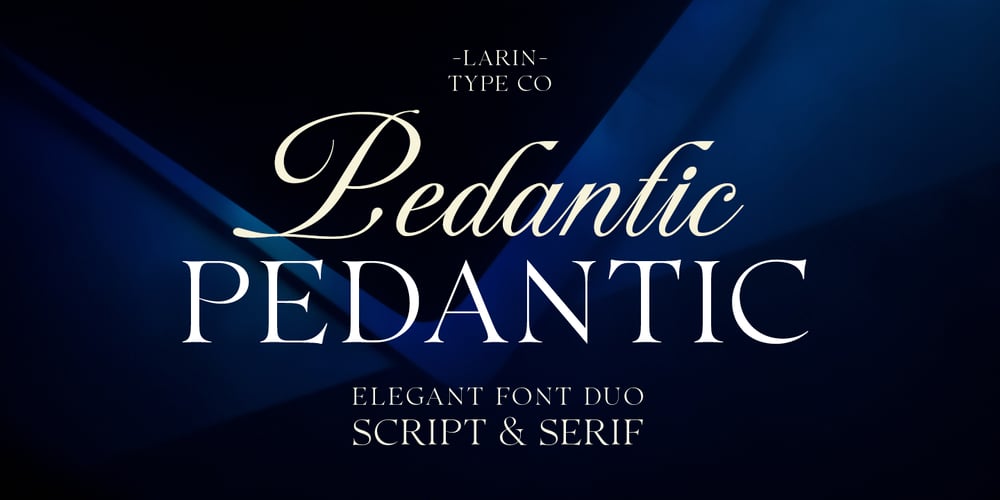
Pedantic
Pedantic font
Pedantic Font Family was designed by Pavel Larin and published by Larin Type Co. Pedantic contains 2 styles and family package options. Pedantic it’s a classic, delightful and charming, sounds like a perfect melody, flows like water,working with her is a pleasure. This font duo includes a monumental serif and a calligraphy script.The Serif font is contracting and elegant, will emphasize your taste and impress with its sophistication and simplicity.The calligraphic Script is elegant, beautiful and carefully assembled, he includes many alternates for uppercase and lowercase as well as swashes.Script and Serif looks great both separately and together and they will be a wonderful addition to your font library.This font is easy to use has OpenType features and all characters in this font have PUA encoding.Includes: Full alphabet with Uppercase and Lowercase A-z for Script Full Capital alphabet A-Z for Serif Numbers, fractions for Script and Serif Punctuation and symbols for Script and Serif Alternates for Serif “Q, K, R, ampersand” Alternates uppercase for Script Alternates lowercase for Script Ligatures for Script “ff, oh, ol, ok, or, os” Swashes for Script